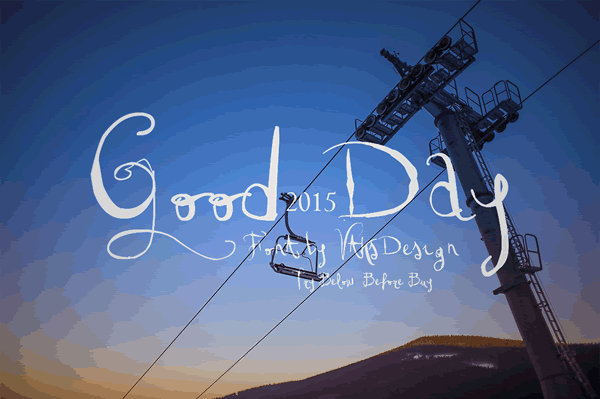
VTKS Good Day Font
About VTKS Good Day Font
Good day is a playful handwritten font.
It is great for personalizing items such as wedding invites, birthday cards and creating beautiful signs.